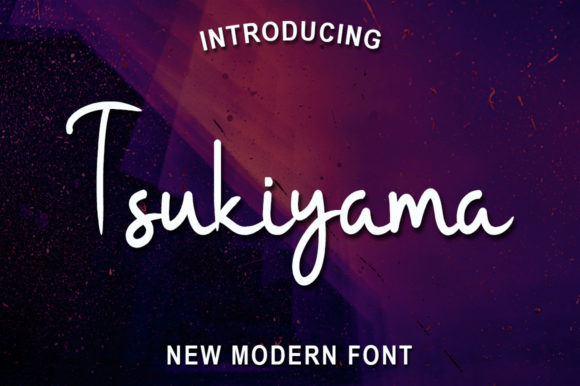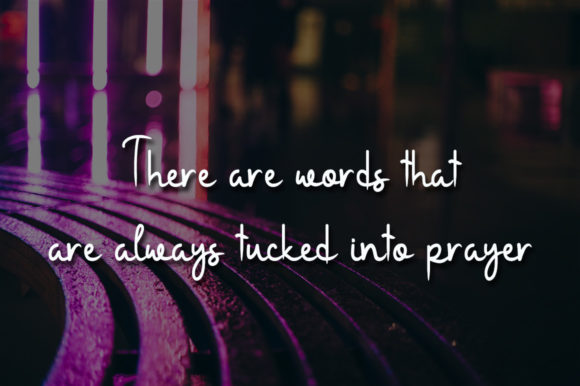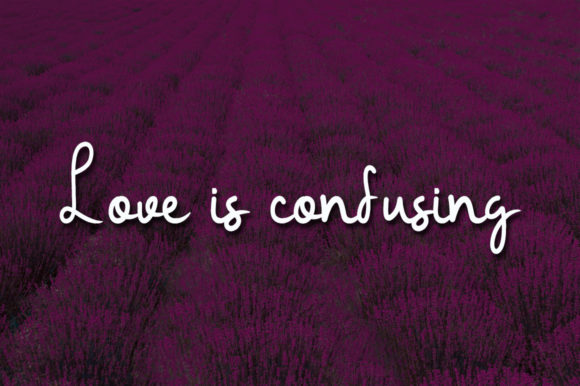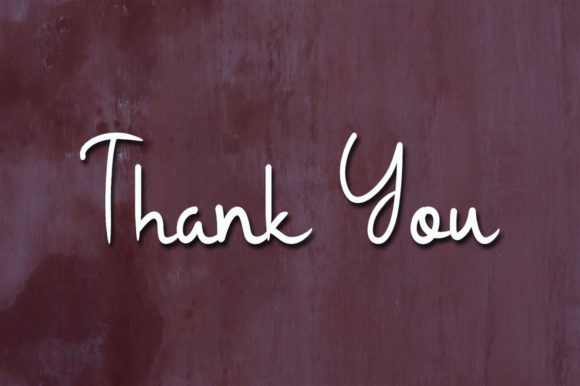
About Tsukiyama Font
Tsukiyama is a sweet and cursive handwritten font. This gentle font will look gorgeous on a variety of design ideas. It will add a joyful and romantic touch to each of your projects!